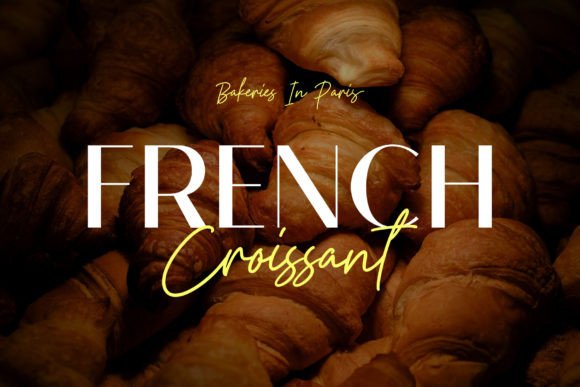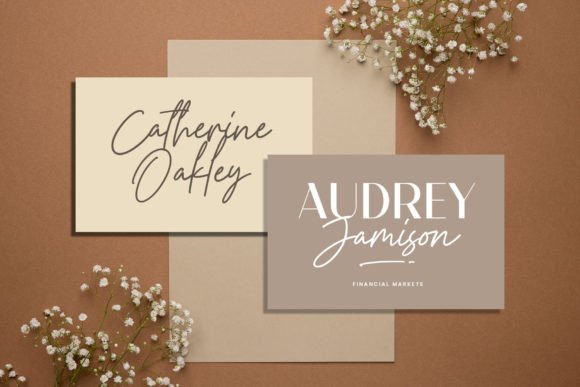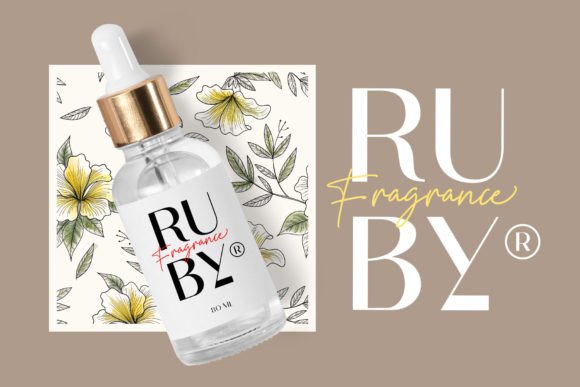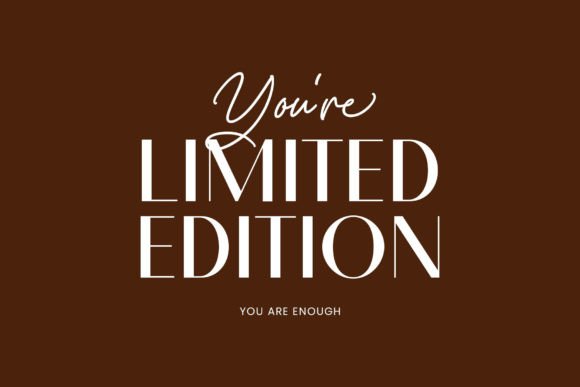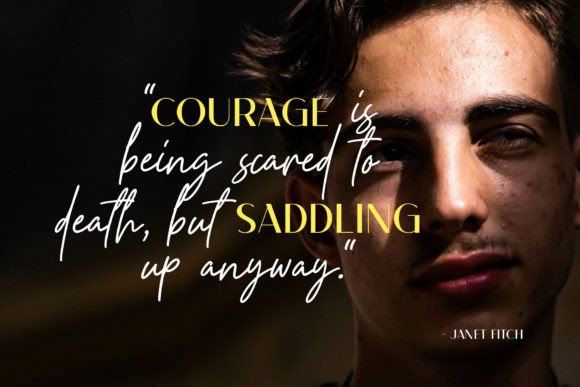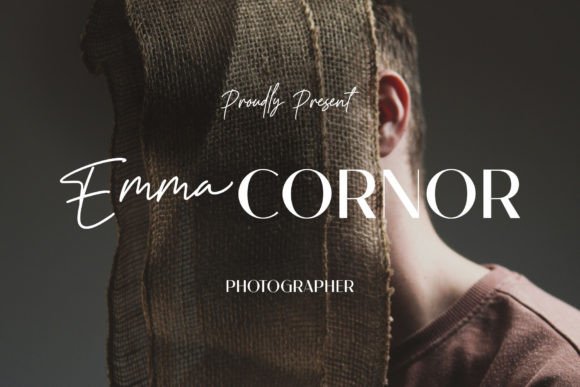
Introduction to Monita Mandoria Font
Have you ever stumbled upon a font combination that immediately sparks your creativity and makes you envision an entire design project come to life? For designers, this moment of inspiration is a game-changer. It’s what drives us to create something truly special, and the right font can be the catalyst that sets the tone for an entire project. One such font combination that has captured the hearts of designers is the Monita Mandoria Font, a stunning pair of Sans and Signature fonts that exude elegance and sophistication.
This high-quality font duo is a design resource like no other, offering endless possibilities for creative projects. With its sleek, modern aesthetic and transparent background, Monita Mandoria Font is perfect for designers looking to create unique and luxurious designs that stand out from the crowd.
Key Features of Monita Mandoria Font
- High-quality design resource ideal for creative projects, including logos, branding, and graphic design.
- Monita Mandoria Font features a unique, modern design with a transparent background, making it perfect for backgrounds, overlays, and text effects.
- Monita Mandoria Font is a versatile design resource that can be used for various creative projects, from business cards to website headers.
- Its modern design and transparent background make it an excellent choice for designers seeking a high-quality, free design resource.
Honest Review: Monita Mandoria Font
As a designer, I’m always on the lookout for high-quality design resources that can elevate my creative projects. Recently, I had the chance to work with the Monita Mandoria Font, and I must say it’s a great addition to any design library.
- Unique and elegant design style, perfect for premium or luxury branding projects
- Translucent background option for a more subtle look, great for modern designs
- High-quality vector files, ensuring crisp and clear rendering at any size
- Limited font sizes and styles available, may require additional downloads for full flexibility
- No support for bold or italic text styles, which may limit its use in certain projects
Overall, I’m impressed with the Monita Mandoria Font’s unique design style and high-quality construction. While it may have some limitations, it’s a great option for designers looking for a free and elegant font for their creative projects.
To get the most out of Monita Mandoria Font, consider the following tips: use it in combination with other design elements to create a cohesive look, experiment with different font sizes and styles to add visual interest, and use the transparent background to create a sense of depth and dimension.
Common Use Cases for Monita Mandoria Font
Monita Mandoria Font is a popular design resource that can be used in a variety of applications, including: branding and logos, website design, social media graphics, and advertising materials. Its high-quality design and transparent background make it an ideal choice for creative projects.
Yes, the Monita Mandoria Font features a transparent background, making it perfect for designs that require a seamless integration with other elements. This feature is especially useful for creative projects that involve complex compositions or layered designs.